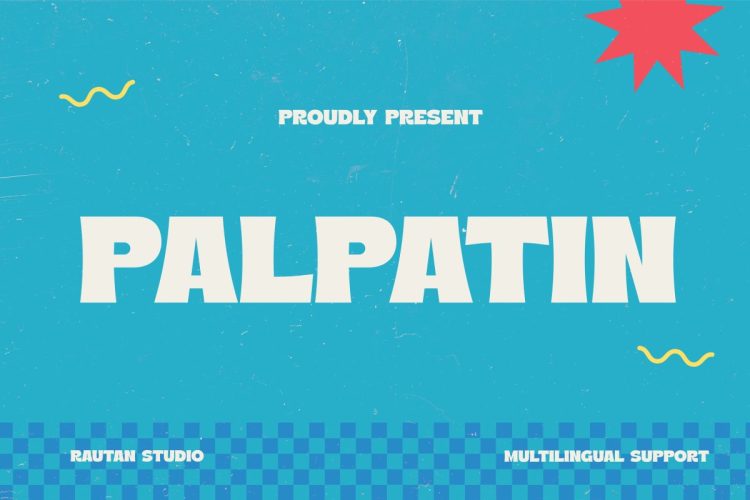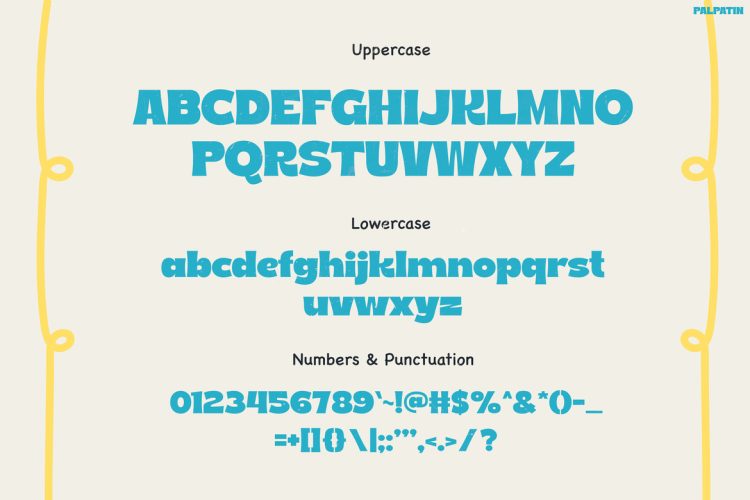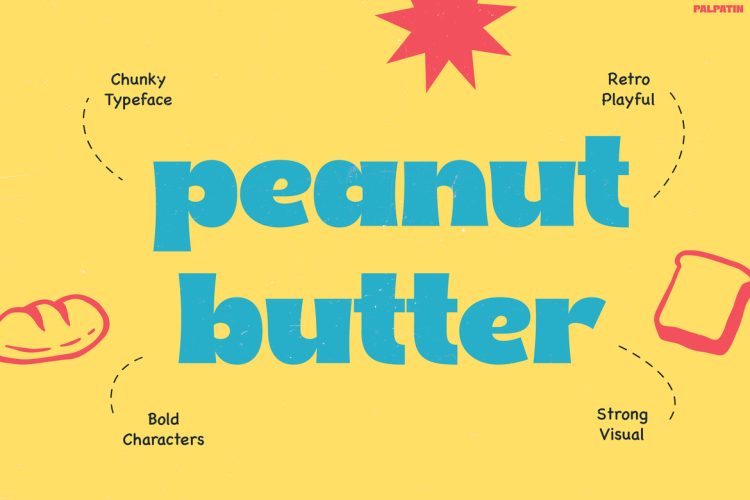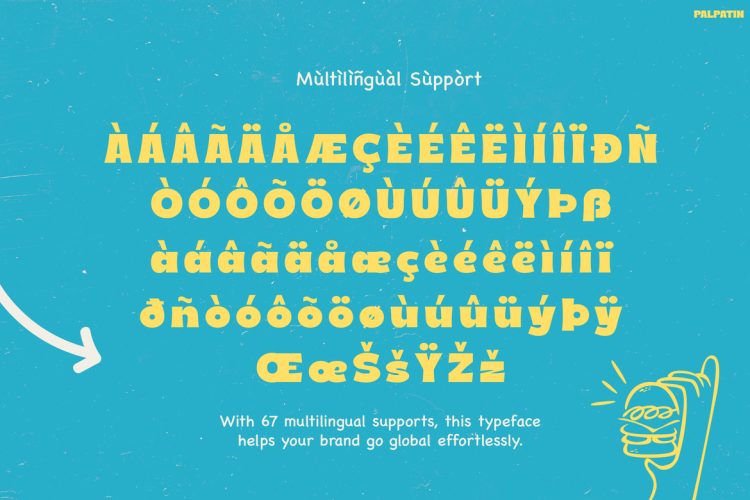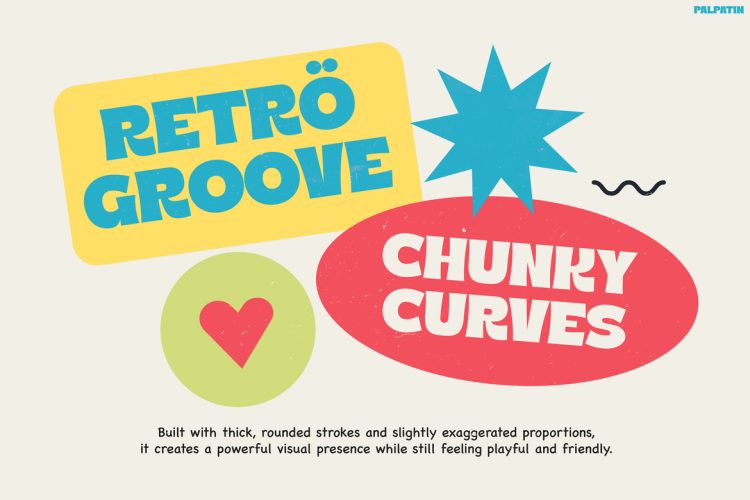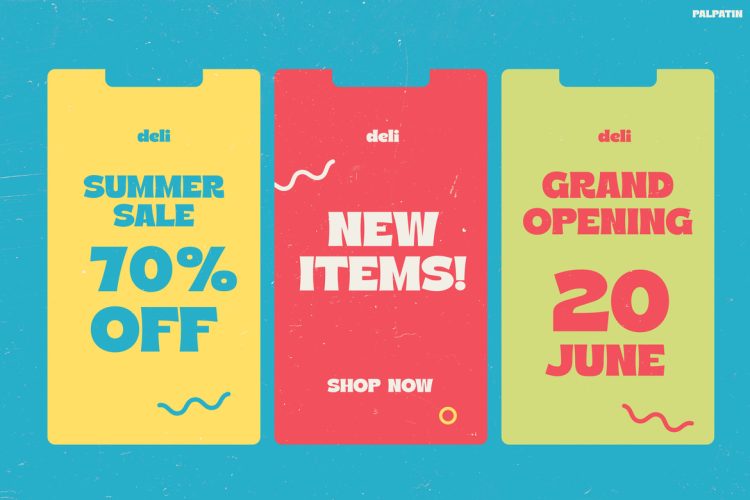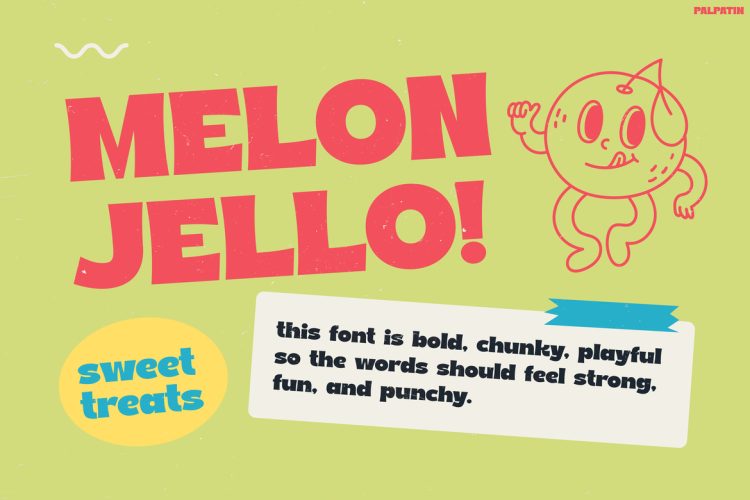
Palpatin – Chunky Retro Charm That Pops!
Retro Font Palpatin delivers a bold, playful personality that instantly stands out. With its chunky curves and soft, rounded edges, this font creates a warm and cheerful visual impact. Moreover, its retro-inspired style brings nostalgic vibes while still feeling fresh and modern. Because of its balanced structure, it remains highly readable even in large headlines. At the same time, the friendly shapes make every word feel approachable and engaging. In addition, this font supports 67 languages, so your designs can reach a wider global audience without limitations.
Retro Font Palpatin is crafted to combine strong visual impact with a fun and lively tone. Its thick strokes and smooth curves create a bold presence, while its playful rhythm adds movement to your typography. Furthermore, the font adapts easily to different design needs, making it highly versatile. Whether you are working on digital content or print materials, it maintains consistency and clarity. As a result, your designs will look both professional and full of character. Not only that, but its retro aesthetic blends perfectly with modern layouts, creating a unique and eye-catching style. Therefore, it becomes an excellent choice for creatives who want something different yet functional.
This font is perfect for designers, brands, and creators who want a fun and bold identity. For example, it works great for food packaging, cafรฉ branding, posters, and social media content. Additionally, it suits kids-related designs, merchandise, and promotional campaigns. In the same way, small businesses and digital marketers can use it to create strong visual impact.
Make your design louder, brighter, and more memorable with Retro Font Palpatinโbecause bold ideas deserve a font that truly pops.